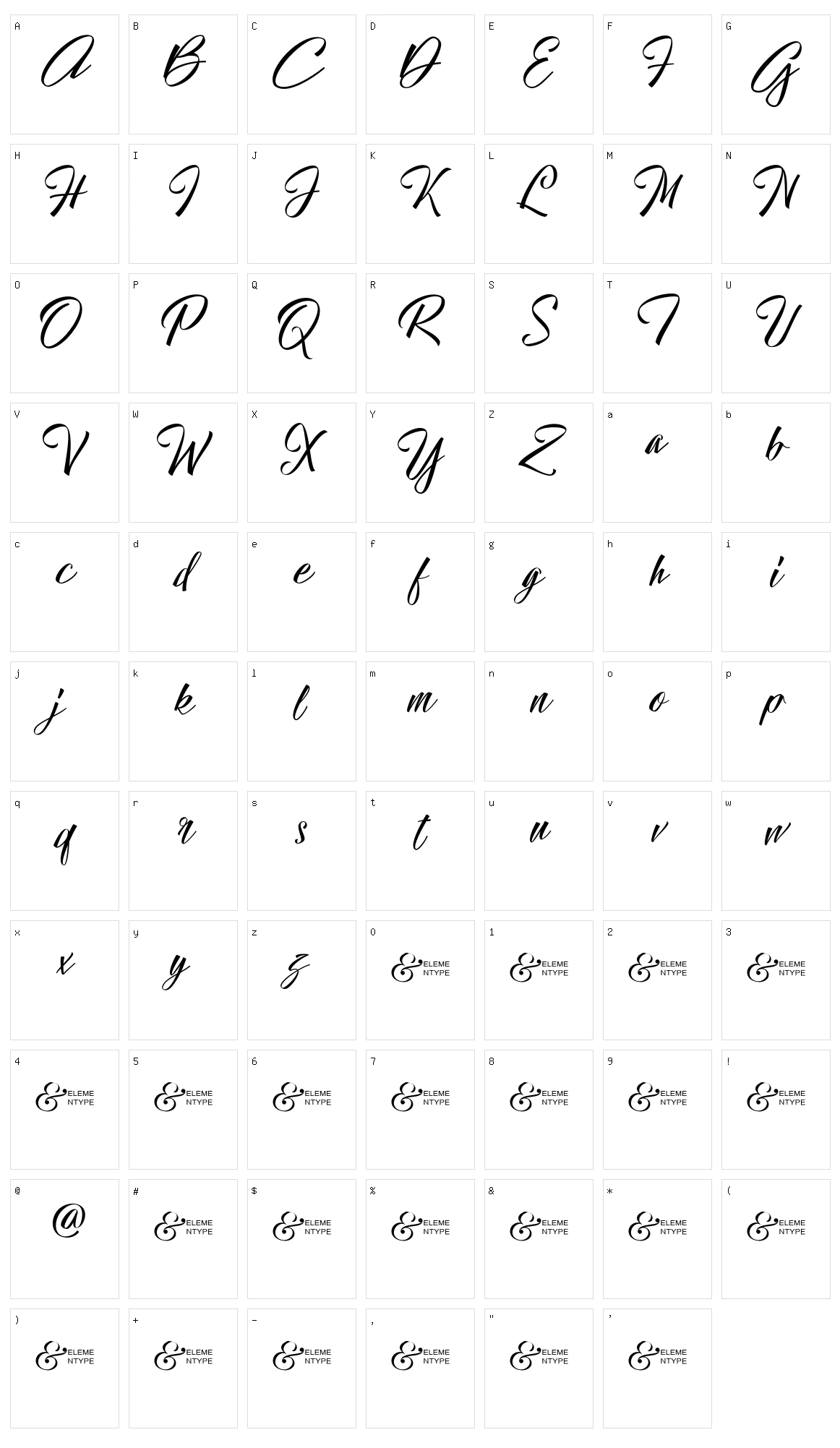
The free font Hallelujah is carefully designed by Aantebas, showcasing a thoughtful balance of creativity and usability and falls under the Script font style. When you download the ZIP file, it contains only 23.68 KB of font files, making it lightweight and quick to download. Please review the license details below to understand permitted usage and distribution rights. If license information is not available, we recommend using this font for personal projects only or contacting the author directly for commercial usage permissions.